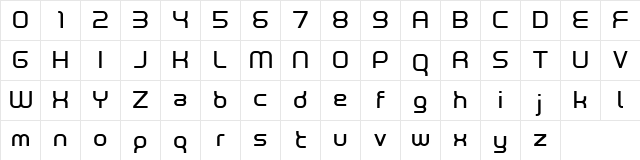
Neutron Demo Regular
| Designer | Andreas Nylin |
Design Context for Neutron Demo Typeface
Neutron Demo is a composed and adaptable typeface that performs quietly and consistently across a wide range of design contexts.
Pro Tip: Pair Neutron Demo with a font of contrasting weight or personality to build a more expressive typographic hierarchy.